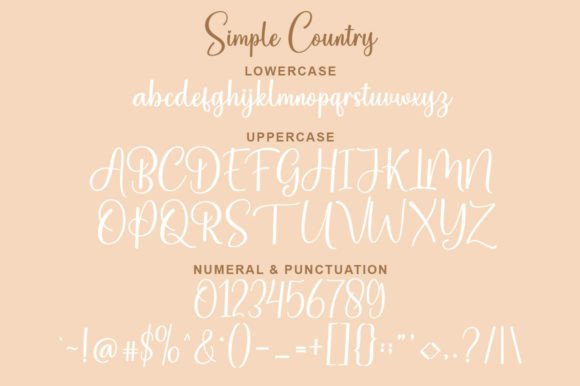
Simple Country Font
Simple Country is a lovely and delicate script font that exudes elegance and class. This font was particularly crafted for those who need a beautiful and refreshing look to their designs.